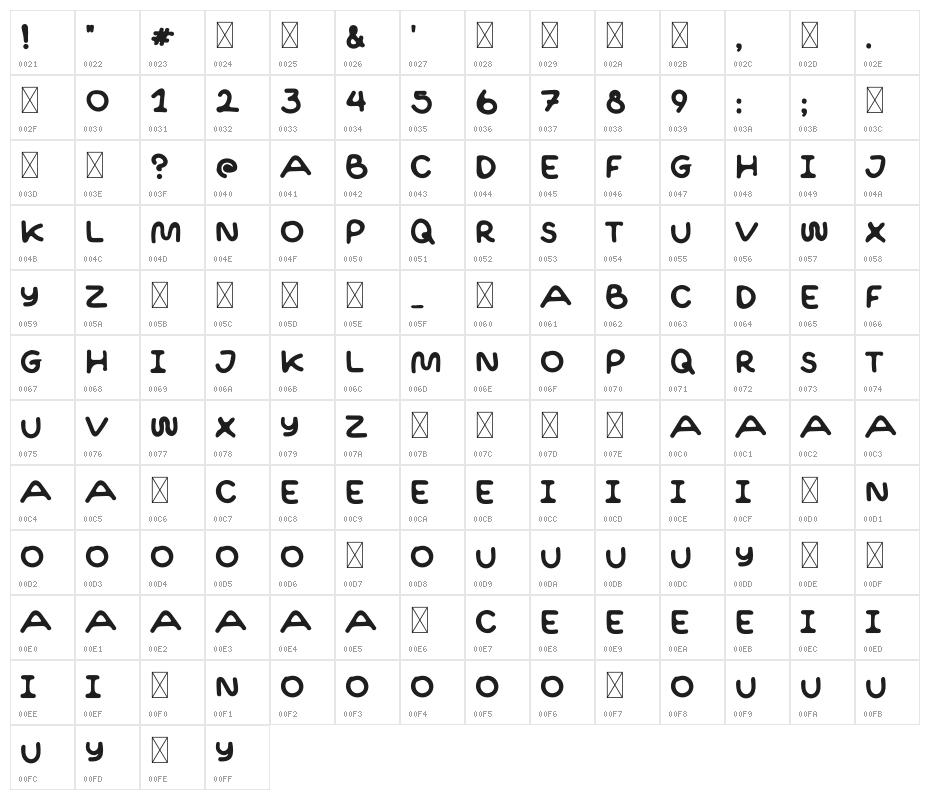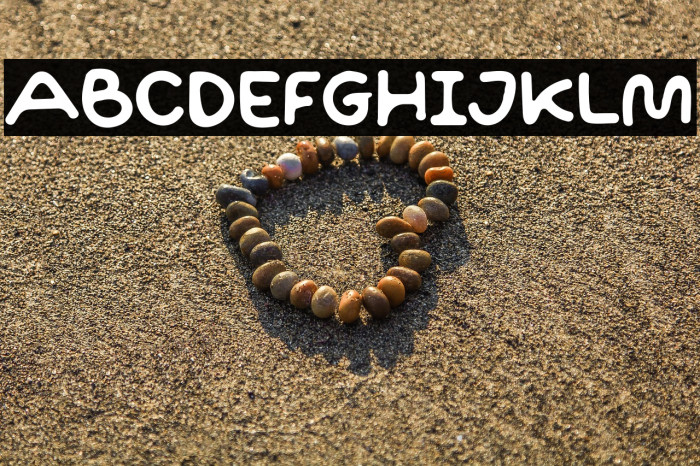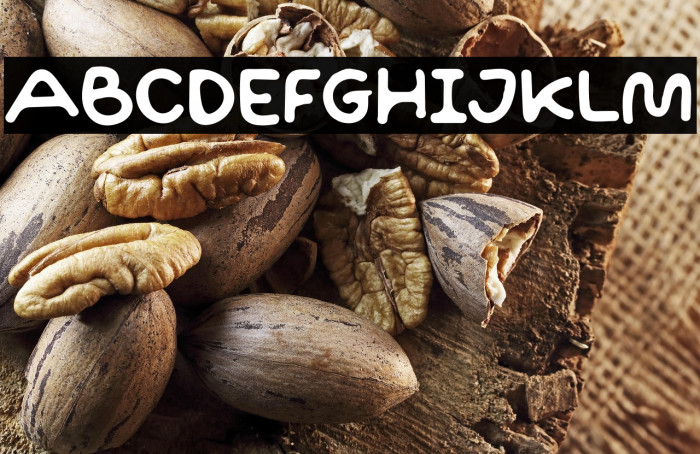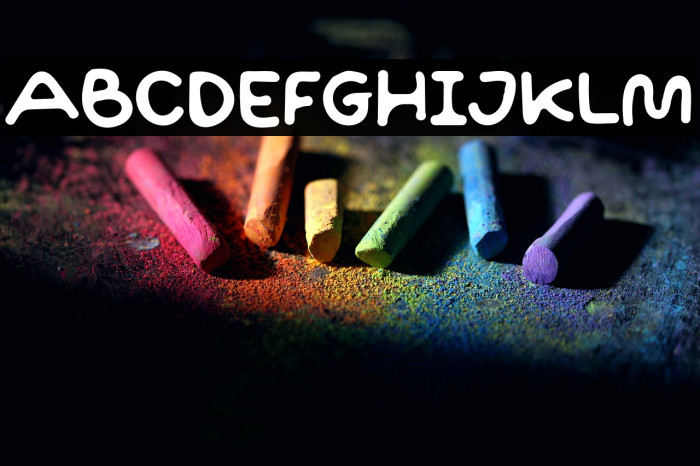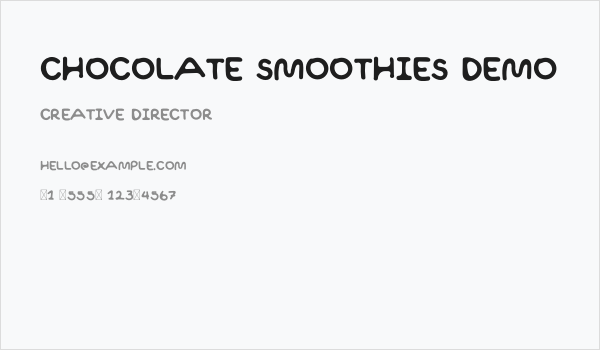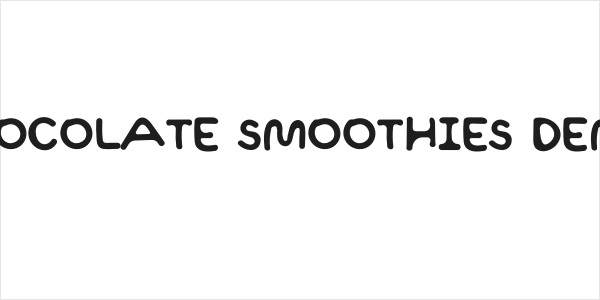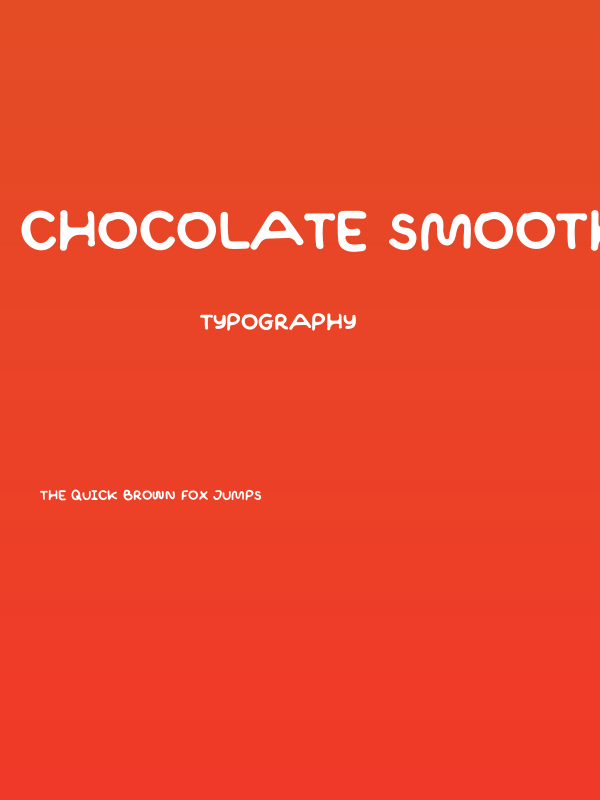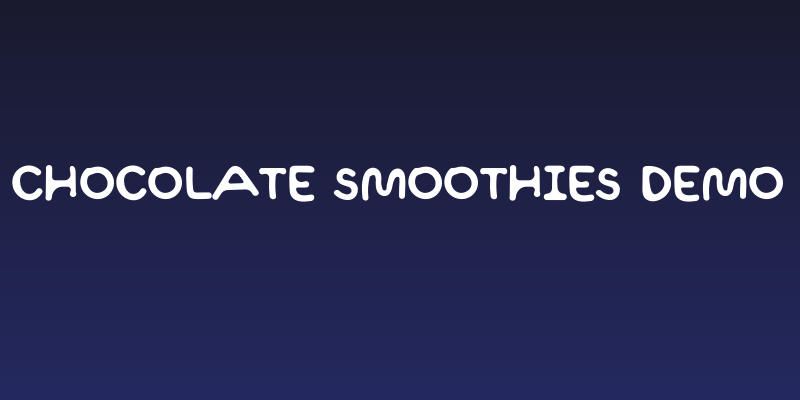
Chocolate Smoothies Demo Font
Chocolate Smoothies Demo Description
This playful and rounded font exudes a friendly and approachable vibe, characterized by its smooth, flowing curves and consistent stroke width. The letters are bold and slightly condensed, giving them a compact appearance while maintaining readability. The font's whimsical style is evident in its rounded edges and uniform thickness, making it ideal for projects that require a touch of fun and creativity. The numbers and special characters follow the same design principles, ensuring a cohesive look across all elements. This font is perfect for designs that aim to convey warmth and friendliness.
| Proposed Projects | Children's books, playful branding, greeting cards, and casual invitations. |